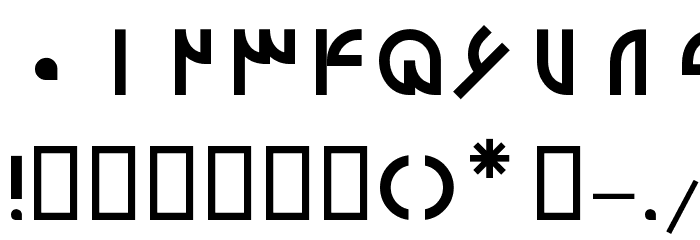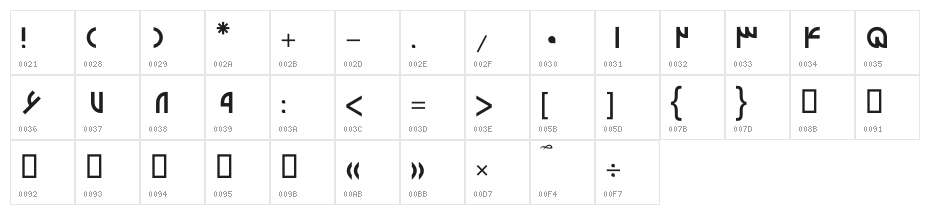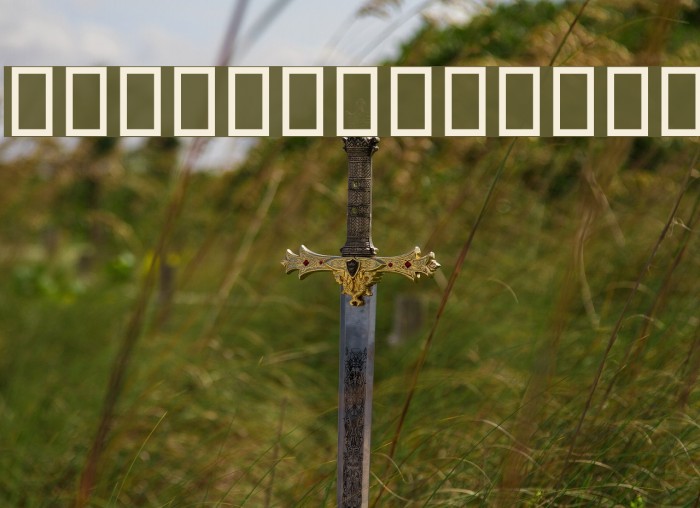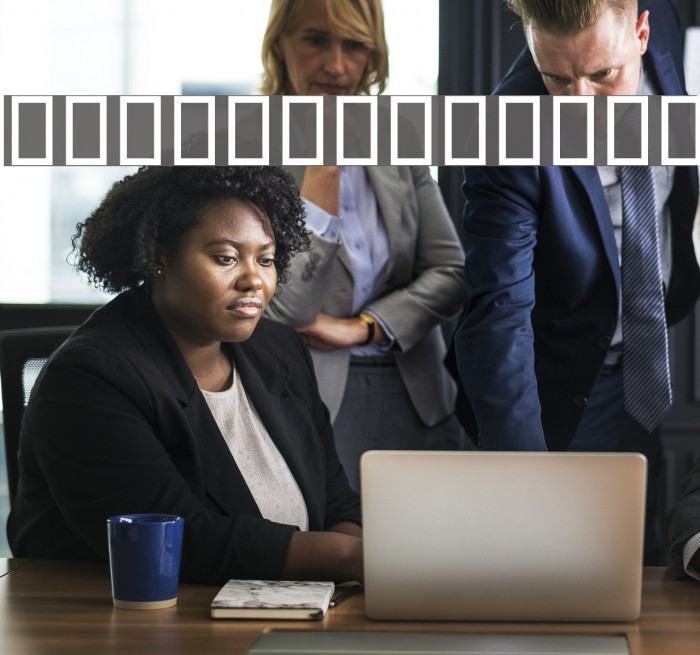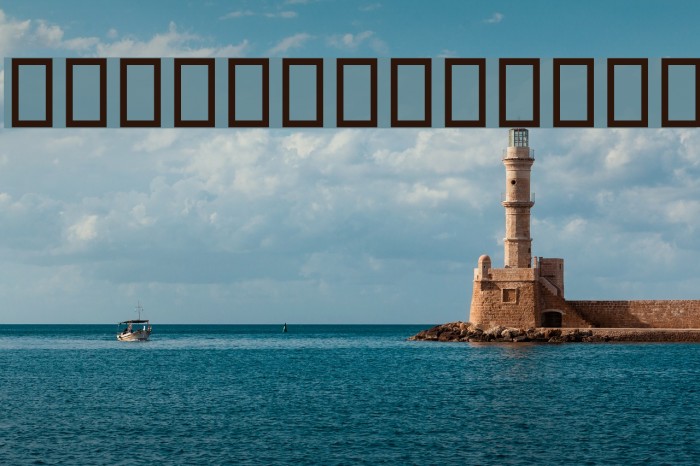
Zaytoon Font
Zaytoon Description
This font features a unique and modern design with bold, geometric shapes that give it a distinctive and futuristic appearance. The characters are crafted with a consistent thickness, providing a uniform look across all letters and numbers. The style is clean and minimalistic, with a focus on readability and impact. The special characters are designed to complement the overall aesthetic, maintaining the same geometric and bold characteristics. This font is ideal for projects that require a contemporary and striking visual presence.
گالری فانت فارسی پژوهش آريانا - only compatible with Farsi and Arabic
| Proposed Projects | Ideal for branding, advertising, posters, and digital media where a modern and impactful look is desired. |